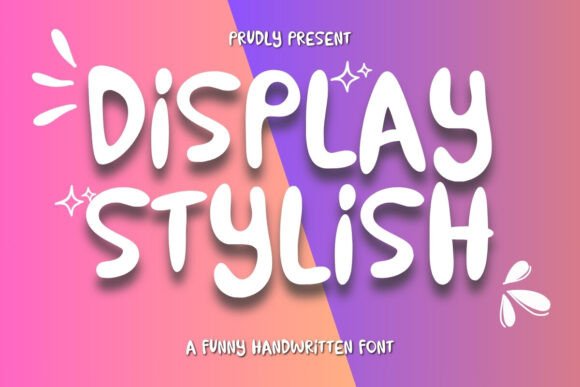
Display Stylish Font: Elevate Your Designs with Elegance and Humor
Are you tired of using the same old fonts for your projects? Look no further than the Display Stylish font, a funny and unique display font that brings a touch of elegance to any design. With its incredibly distinct and timeless style, this font is sure to make your projects stand out from the crowd.
The Story Behind Display Stylish Font
The Display Stylish font was created with the goal of providing a fresh and exciting alternative to traditional fonts. Its designers wanted to craft a font that was not only stylish but also fun and playful. The result is a font that is perfect for a wide range of projects, from creative designs to marketing materials.
Key Features of Display Stylish Font
So, what makes the Display Stylish font so special? Here are just a few of its key features:
- Unique and Distinctive Style: The Display Stylish font has a one-of-a-kind look that will set your designs apart from the rest.
- Elegant and Refined: Despite its playful nature, the font still exudes a sense of sophistication and elegance.
- Fun and Playful: The font’s quirky style makes it perfect for designs that require a bit of humor and whimsy.
- Timeless Appeal: The Display Stylish font is designed to stand the test of time, ensuring your designs remain stylish for years to come.
Uses for Display Stylish Font
The Display Stylish font is incredibly versatile and can be used for a wide range of projects, including:
- Logos and Branding: Create a memorable logo that stands out from the competition.
- Posters and Flyers: Add a touch of humor and elegance to your marketing materials.
- Social Media Graphics: Elevate your social media presence with eye-catching graphics.
- Web Design: Use the Display Stylish font to create a unique and engaging website.
Tips for Using Display Stylish Font
To get the most out of the Display Stylish font, here are a few tips to keep in mind:
- Use it Sparingly: While the font is beautiful, it’s best to use it sparingly to avoid overwhelming your design.
- Pair it with Other Fonts: Experiment with pairing the Display Stylish font with other fonts to create a unique and visually appealing combination.
- Adjust the Size and Color: Play around with different sizes and colors to find the perfect fit for your design.
The Benefits of Using Display Stylish Font
So, why should you choose the Display Stylish font for your next project? Here are just a few benefits:
- Stand Out from the Crowd: With its unique style, the Display Stylish font will help your designs stand out from the competition.
- Elevate Your Brand: The font’s elegant and refined style makes it perfect for businesses looking to elevate their brand.
- Add a Touch of Humor: The font’s playful nature makes it perfect for designs that require a bit of humor and whimsy.
In conclusion, the Display Stylish font is a funny and unique display font that brings a touch of elegance to any design. With its incredibly distinct and timeless style, this font is sure to make your projects stand out from the crowd. Whether you’re looking to create a memorable logo, eye-catching graphics, or a unique website, the Display Stylish font is the perfect choice.